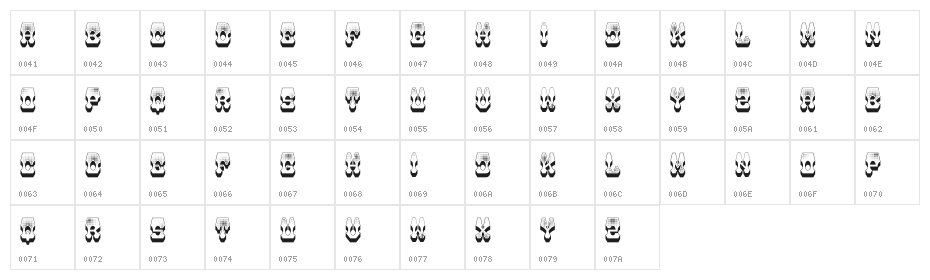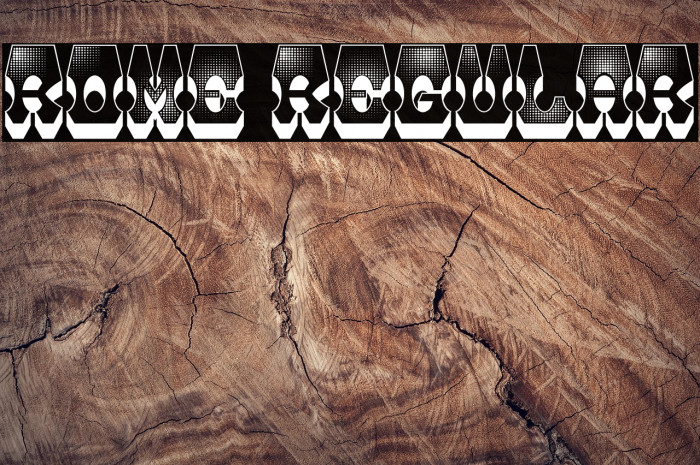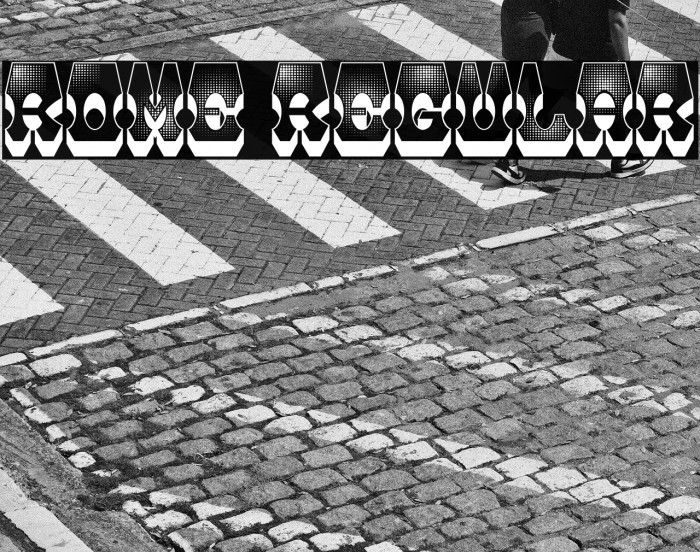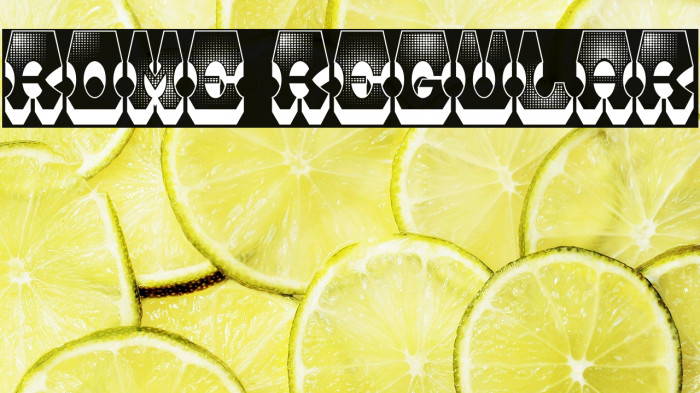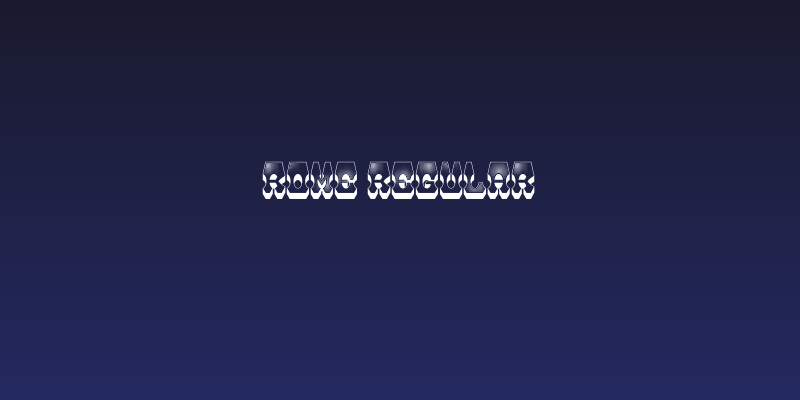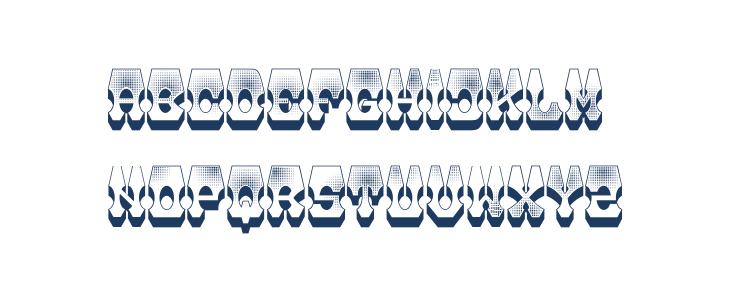
Rome Regular Font
Rome Regular Description
This font features a bold, three-dimensional style with a distinct geometric pattern. Each letter is crafted with a shadow effect, giving it a strong, impactful appearance. The design incorporates a halftone texture, adding depth and a retro feel. The characters are uniformly wide, with consistent spacing that enhances readability despite the complex design. The uppercase letters are particularly striking, making them ideal for attention-grabbing headlines or titles. The font's unique aesthetic is both modern and reminiscent of vintage comic book art, making it versatile for various creative projects.
| Overall Style | Retro, Modern |
| Proposed Projects | Ideal for posters, logos, comic book titles, and retro-themed designs. |